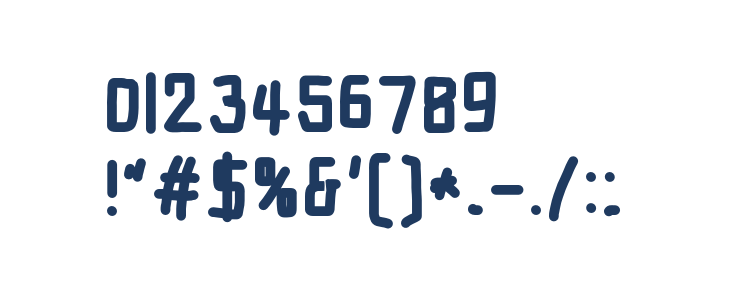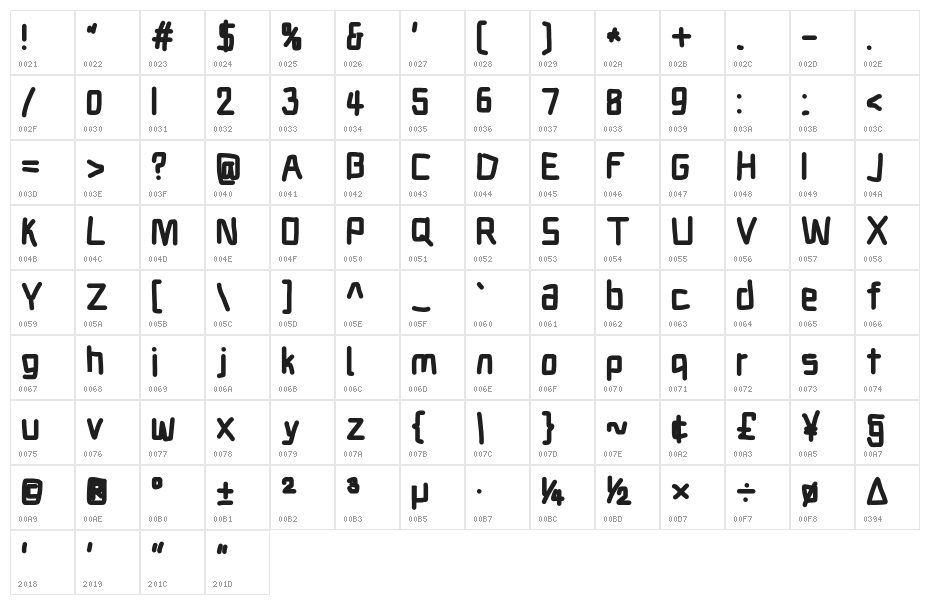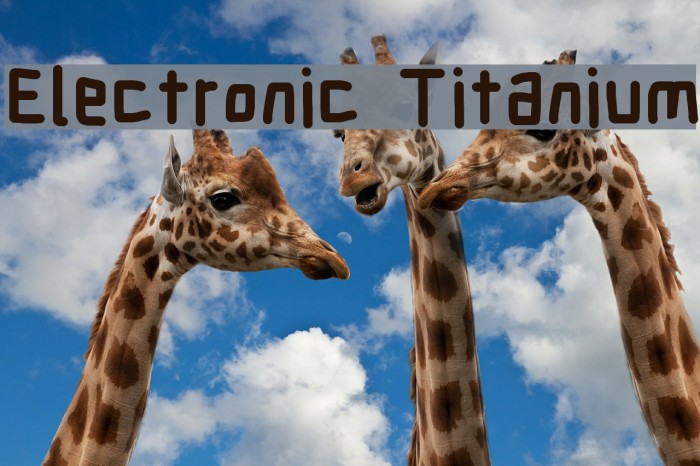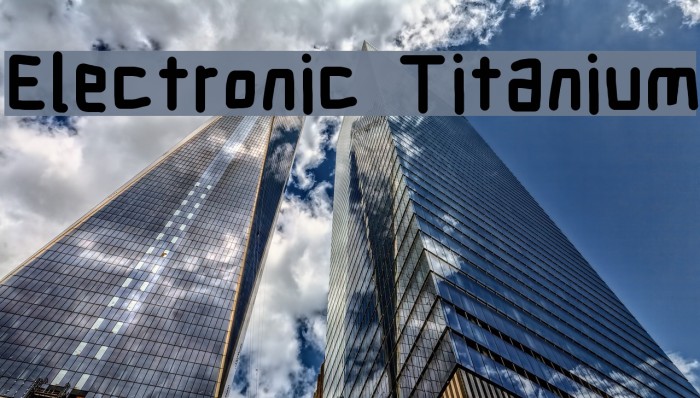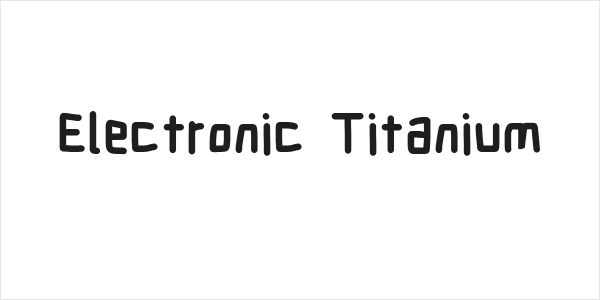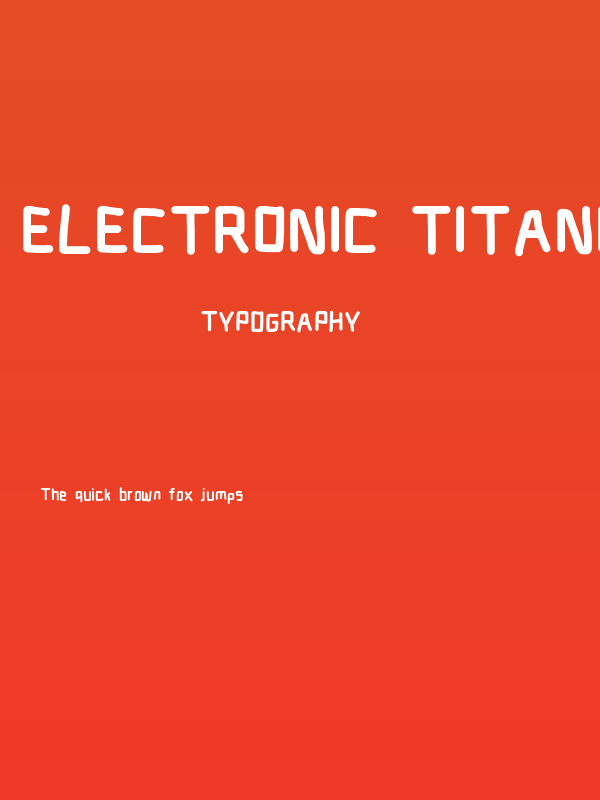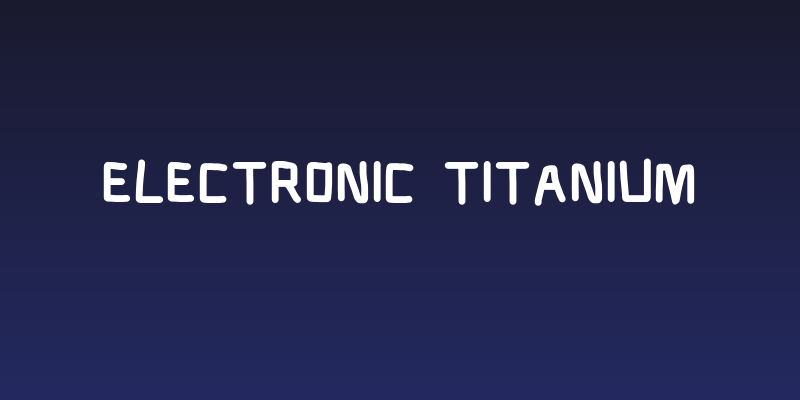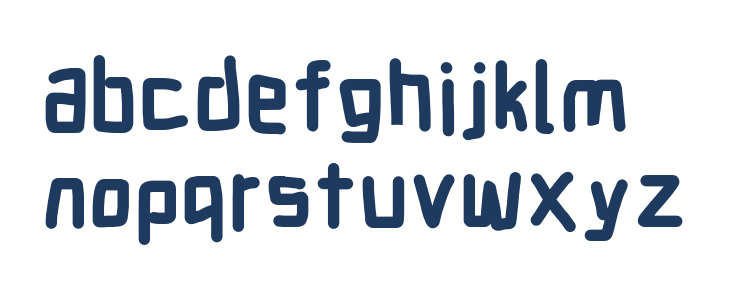
Electronic Titanium Font
Electronic Titanium Description
This font features a bold and rounded style with a playful, handwritten appearance. The characters are thick and slightly irregular, giving them a casual and approachable feel. The uppercase letters maintain a consistent height, while the lowercase letters have a slightly smaller and more varied size, adding to the informal aesthetic. The numbers and special characters follow the same bold and rounded design, ensuring uniformity across all elements. This font's unique style makes it stand out, offering a friendly and modern vibe suitable for various creative applications.